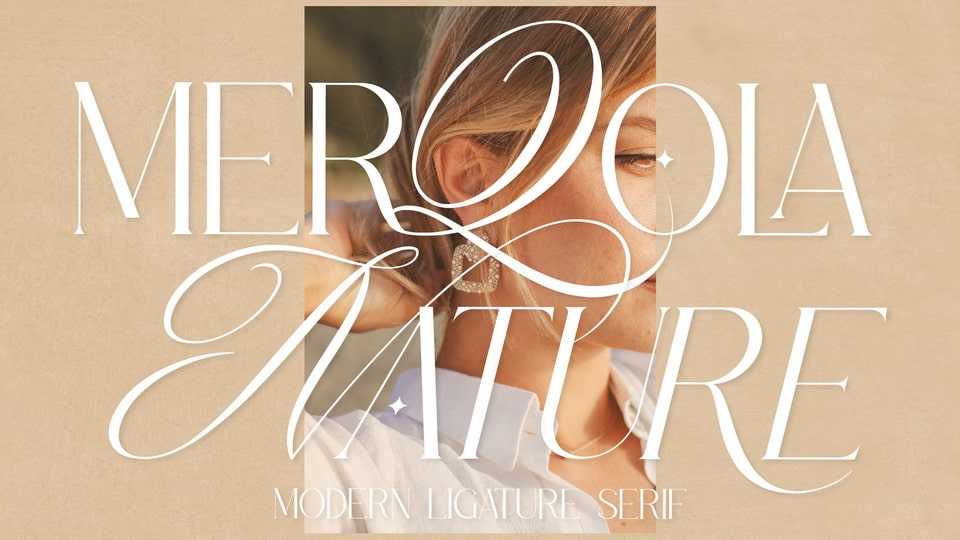
Download Merqola Nature font, a modern display typeface with interesting variations. Bring a little magic or romance to your work with Merqola Nature, it’s a fun twist on the traditional look and feel of a classy serif font.